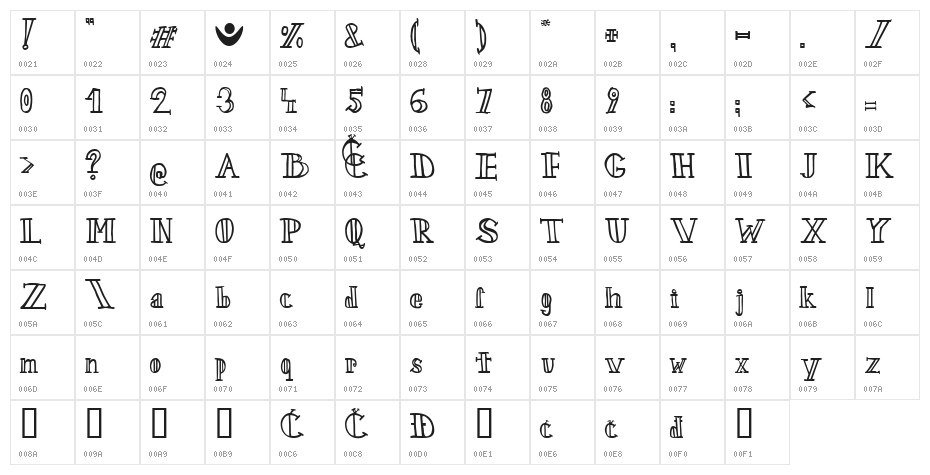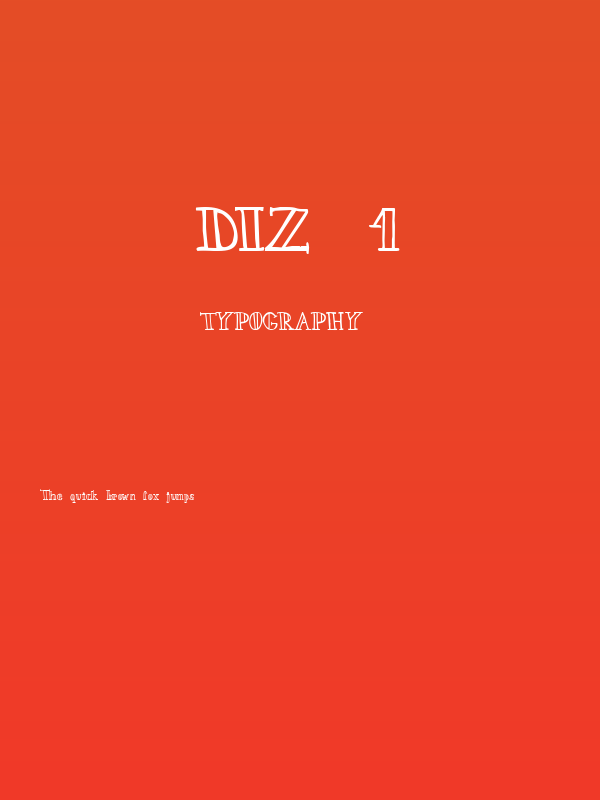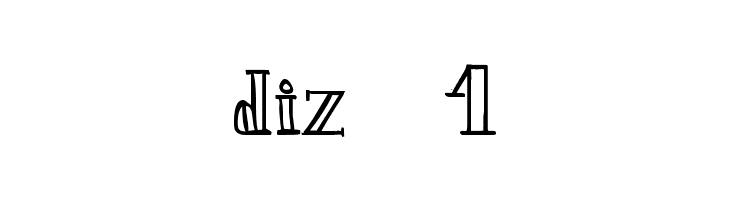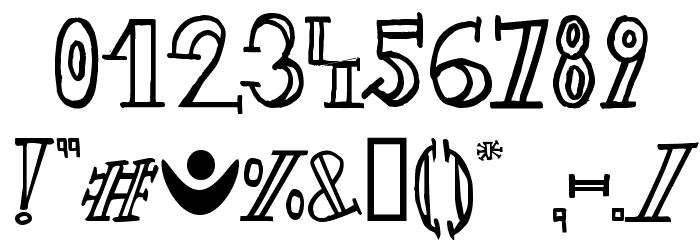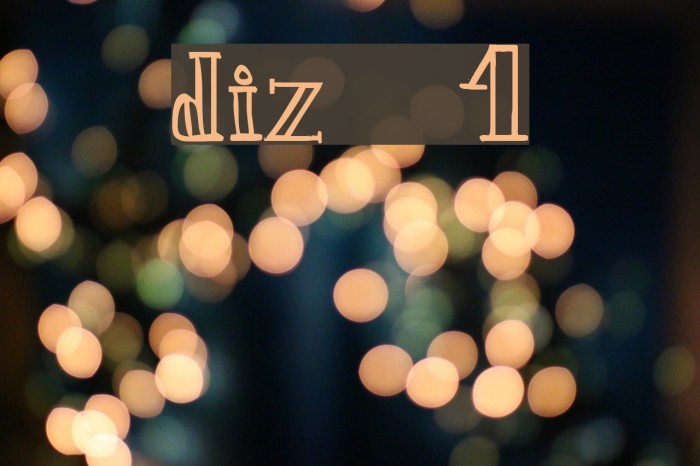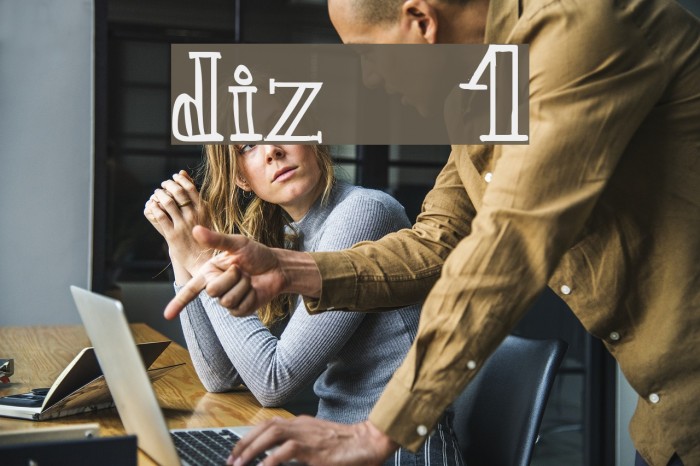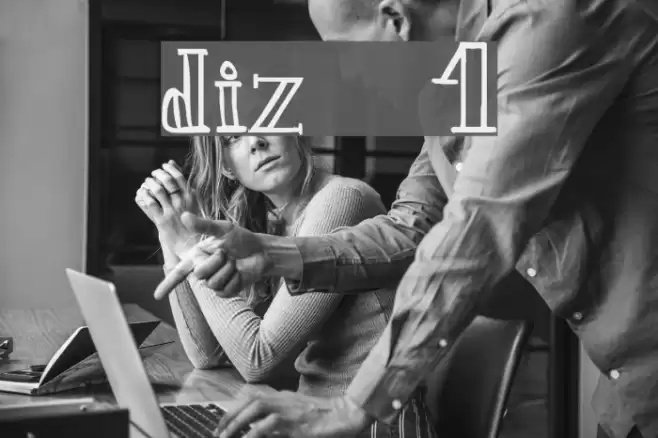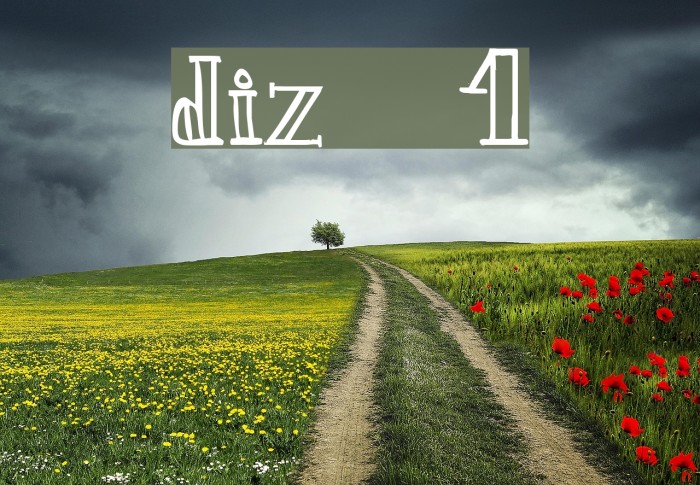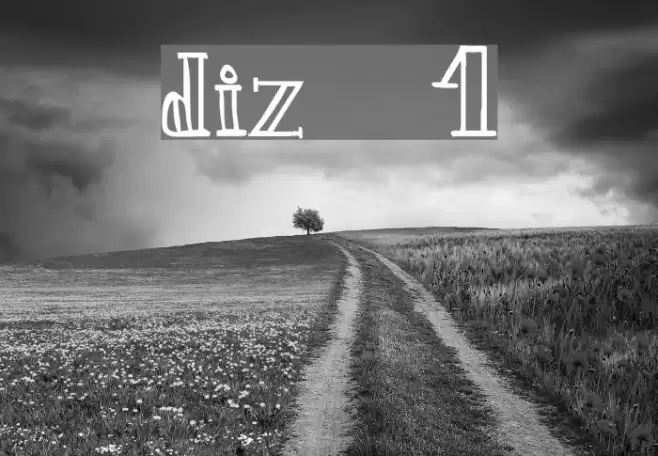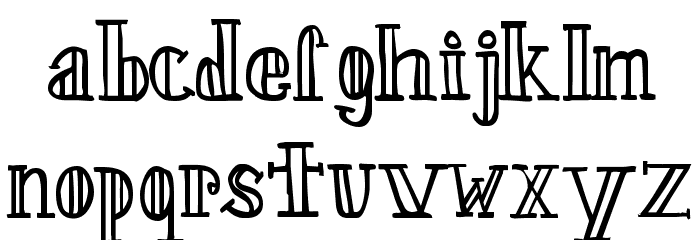
diz 1 Font
diz 1 Description
This font features a playful and decorative style with a unique twist on traditional letterforms. Each character is designed with a whimsical flair, incorporating elements such as exaggerated serifs and varying line thicknesses. The uppercase letters are bold and eye-catching, while the lowercase letters maintain a consistent style that complements the overall design. Numbers and special characters follow the same aesthetic, making them stand out with their quirky and artistic appearance. The font's distinct personality makes it ideal for creative projects that require a touch of fun and originality.
DIZ-1 UPPERCASE
DIZ-1 LOWERCASE
DIZ-1 OTHER CHARS
| Proposed Projects | Ideal for children's books, playful branding, posters, and creative invitations. |